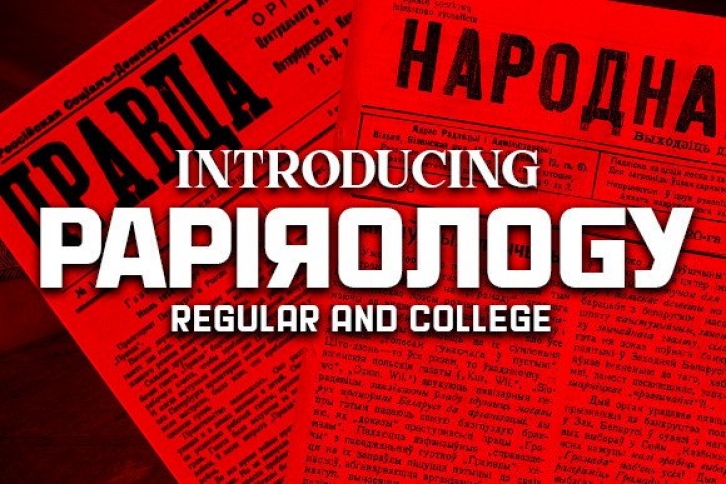
Papirology is an awesome Soviet-inspired display font. It looks great on posters, banners, book covers, or anything that needs a solemn and book look.